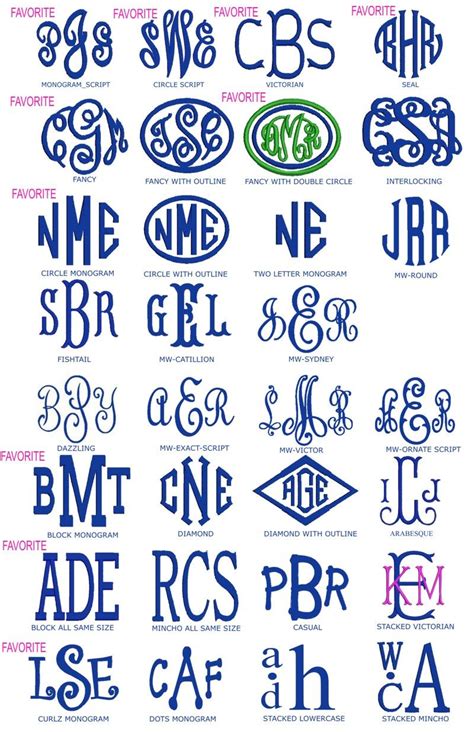
Unlock Your Creativity with These Amazing Free Monogram Fonts For Commercial Use!
Are you looking for creative ways to take your designs to the next level? Monogram fonts are a great way to set your designs apart from the rest.
But finding the right font can be a challenge. That’s why we’ve compiled a list of the best free monogram fonts for commercial use. Read on to unlock your creativity!
Are you ready to get creative? Do you have an eye for design? Or maybe you’re just in need of some inspiration?
Whatever your reasons, this list of free monogram fonts is sure to help you express your creativity. From elegant script fonts to bold modern styles, you’ll find the perfect font for your next project.
These fonts are perfect for logos, invitations, greeting cards, web design, and more. Best of all, they’re all free to use for commercial projects. So what are you waiting for?
Start unlocking your creativity with these amazing free monogram fonts for commercial use. Read on to find the perfect font for your next project!
It’s time to take your designs to the next level. With these free monogram fonts, you can create stunning logos, invitations, and other designs. So don’t wait any longer. Read on to get inspired and unlock your creativity!
Unlock Your Creativity with Amazing Monogram Fonts
Are you a creative person looking to make your work stand out? Monogram fonts are a great way to add a unique touch to your projects. Monogram fonts are fonts that feature two or more letters combined into one graphic. They are often used to create logos, badges, and other designs. There are many monogram fonts available for free online that you can use for commercial purposes. In this article, we will discuss some of the best free monogram fonts for commercial use.
Choosing the Right Monogram Font
When choosing a monogram font, it is important to consider the style of your project. Different fonts have different aesthetics and can add different elements to your work. For example, if you are creating a logo for a business or product, you may want to choose a font that is professional and modern looking. On the other hand, if you are creating a design for a wedding invitation or other special occasion, you may want to choose a font that is more elegant and ornate. It is important to find the right font that compliments your project and helps you create the look you want.
Monogram Fonts From DaFont
DaFont is a great website for finding free fonts. They have a wide selection of monogram fonts that you can use for commercial purposes. Some of the most popular monogram fonts on DaFont include Merriweather, Prata, and Zefani. Merriweather is a sans-serif font with a modern look. Prata is a decorative font that features a mix of serif and sans-serif elements. Zefani is a bold and ornate font that is perfect for creating eye-catching designs.
Monogram Fonts From Font Squirrel
Font Squirrel is another great resource for finding free fonts. They have an extensive selection of monogram fonts that you can use for commercial purposes. Some of the most popular monogram fonts on Font Squirrel include Merriweather, Prata, and Zefani. Merriweather is a sans-serif font with a modern look. Prata is a decorative font that features a mix of serif and sans-serif elements. Zefani is a bold and ornate font that is perfect for creating eye-catching designs.
Monogram Fonts From Fontfabric
Fontfabric is another great resource for finding free fonts. They have a wide selection of monogram fonts that you can use for commercial purposes. Some of the most popular monogram fonts on Fontfabric include Merriweather, Prata, and Zefani. Merriweather is a sans-serif font with a modern look. Prata is a decorative font that features a mix of serif and sans-serif elements. Zefani is a bold and ornate font that is perfect for creating eye-catching designs.
Monogram Fonts From TheHungryJPEG
TheHungryJPEG is a great website for finding free fonts. They have a wide selection of monogram fonts that you can use for commercial purposes. Some of the most popular monogram fonts on TheHungryJPEG include Merriweather, Prata, and Zefani. Merriweather is a sans-serif font with a modern look. Prata is a decorative font that features a mix of serif and sans-serif elements. Zefani is a bold and ornate font that is perfect for creating eye-catching designs.
Monogram Fonts From Fontspace
Fontspace is another great website for finding free fonts. They have an extensive selection of monogram fonts that you can use for commercial purposes. Some of the most popular monogram fonts on Fontspace include Merriweather, Prata, and Zefani. Merriweather is a sans-serif font with a modern look. Prata is a decorative font that features a mix of serif and sans-serif elements. Zefani is a bold and ornate font that is perfect for creating eye-catching designs.
Monogram Fonts From Dafont
Dafont is another great website for finding free fonts. They have a wide selection of monogram fonts that you can use for commercial purposes. Some of the most popular monogram fonts on Dafont include Merriweather, Prata, and Zefani. Merriweather is a sans-serif font with a modern look. Prata is a decorative font that features a mix of serif and sans-serif elements. Zefani is a bold and ornate font that is perfect for creating eye-catching designs.